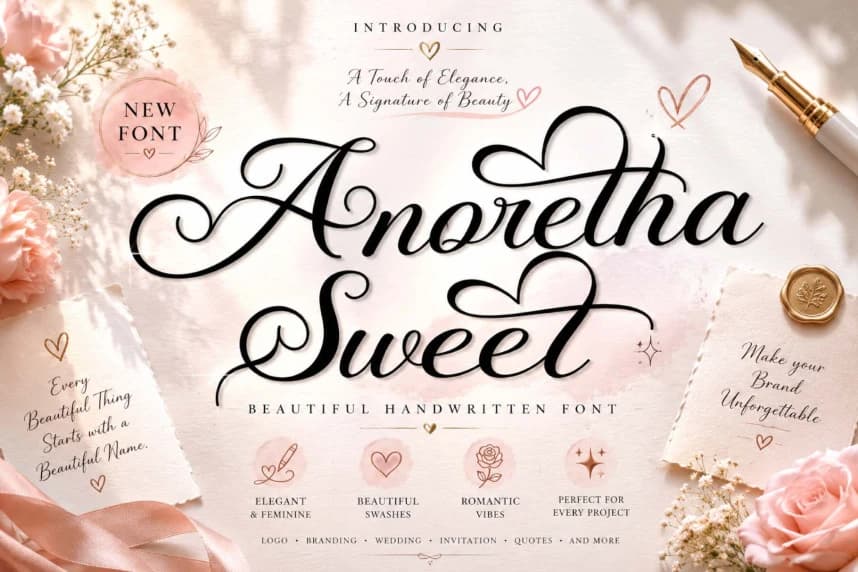
Anoretha Sweet Font
Anoretha Sweet Font is a beautiful handwritten font with regular and italic styles, featuring uppercase and lowercase letters, numbers, punctuation, multilingual support, and ligatures.
Anoretha Sweet Font is a graceful, handwritten display typeface designed to add elegance and personality to your projects. This listing includes two styles—Regular and Italic—in a single download, provided as a TTF font file with broad character support and ligatures.
- 2 font styles: Regular and Italic
- Basic features: uppercase, lowercase, numbers, punctuation, multilingual support, and ligatures
- Multilingual support for broad usability
- Ligatures for refined typography
- Consistent metrics across both styles
Use Anoretha Sweet for invitations, branding accents, greeting cards, quotes, and personal projects that require a refined, handwritten aesthetic. The two styles let you switch from a flowing, formal feel to a lighter, italic variant with ease.
Downloading this font gives you a distinctive, elegant handwriting option that works across print and digital media. The Regular and Italic pairing offers versatility for headings, body text, and design accents, while ligatures help achieve a cohesive, sophisticated look.